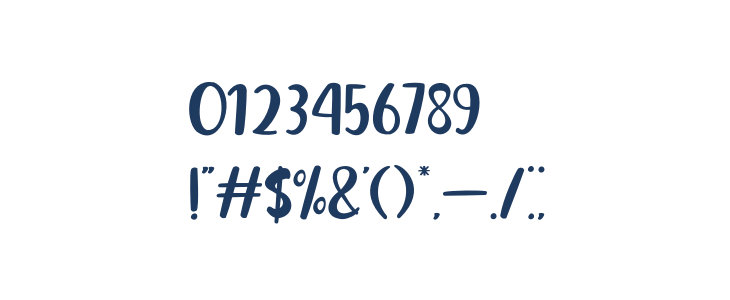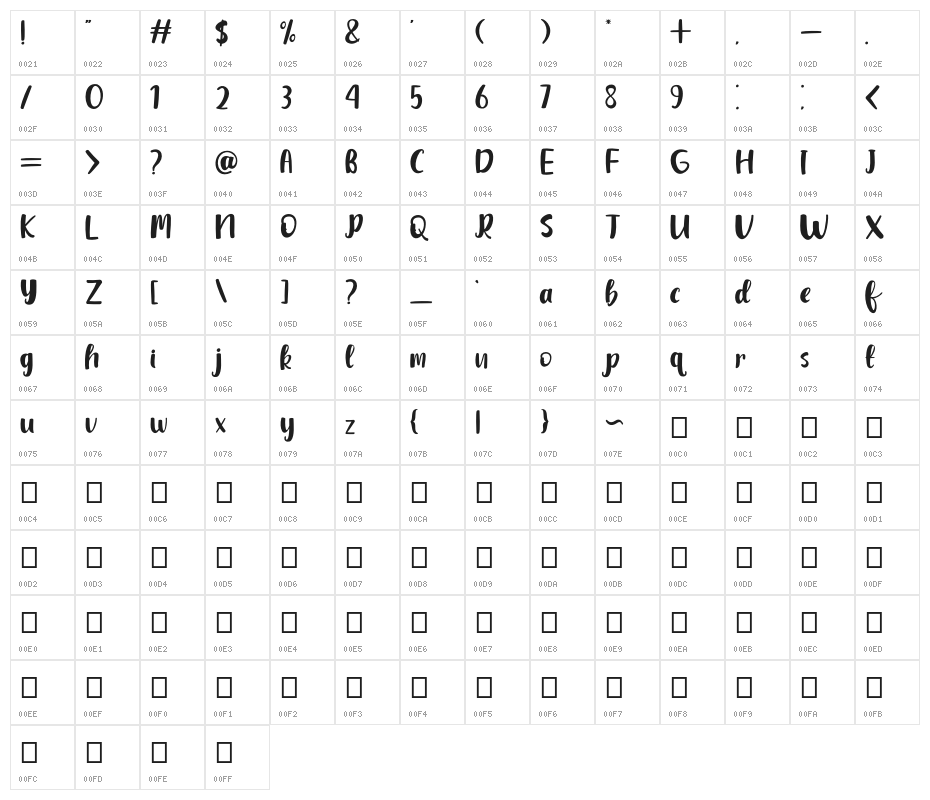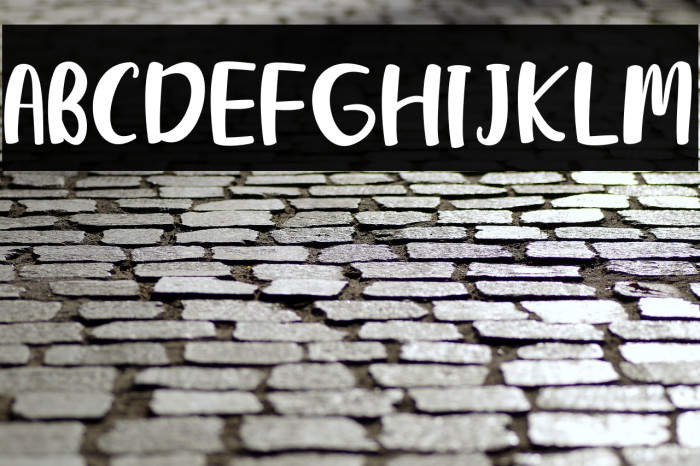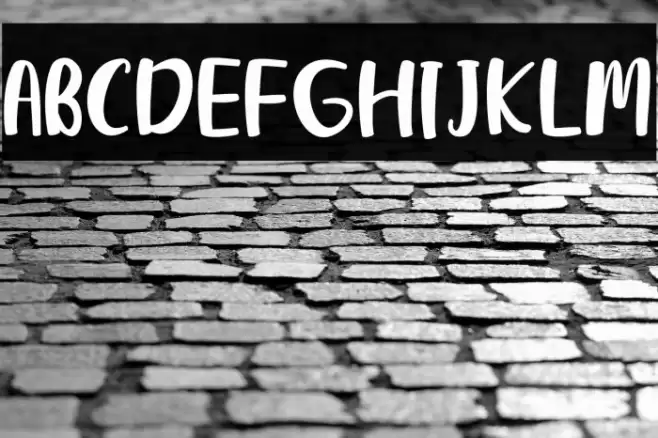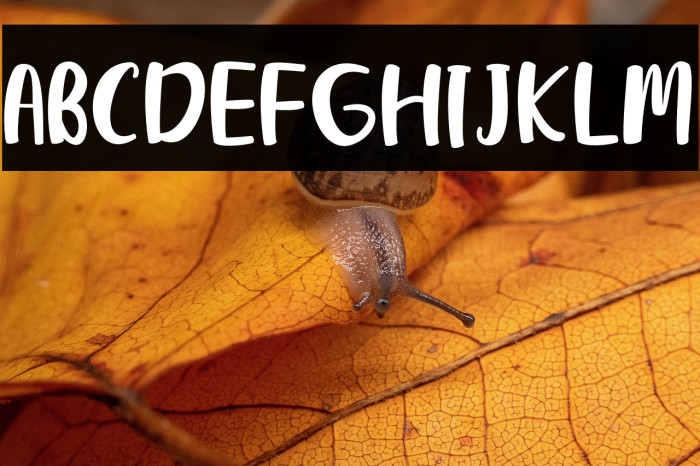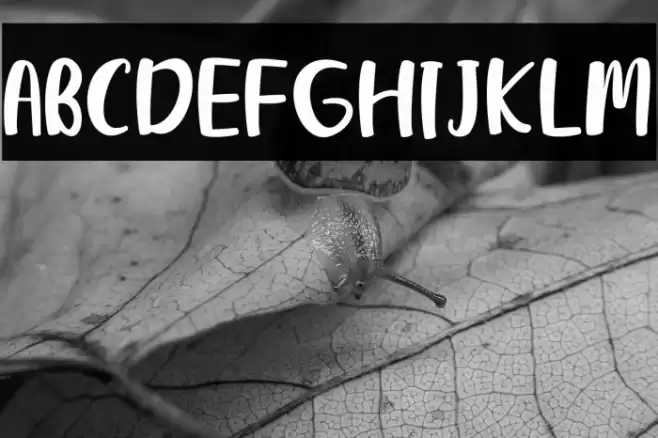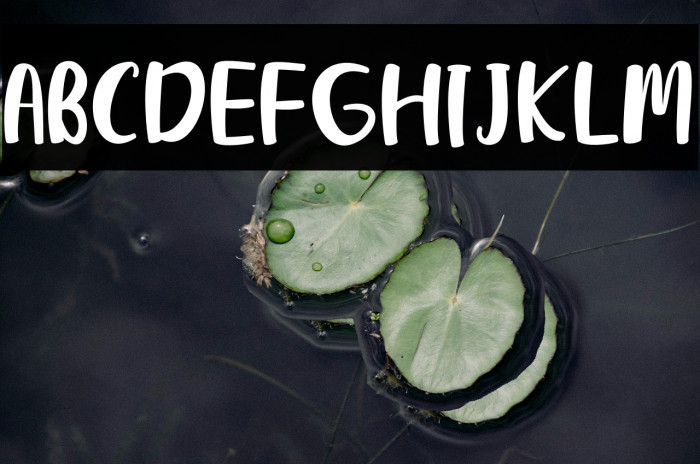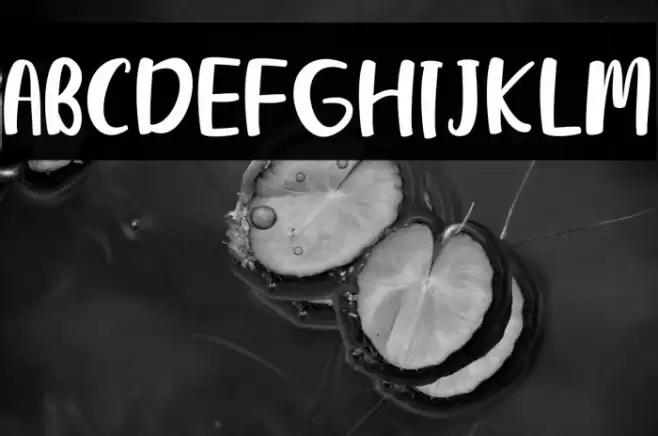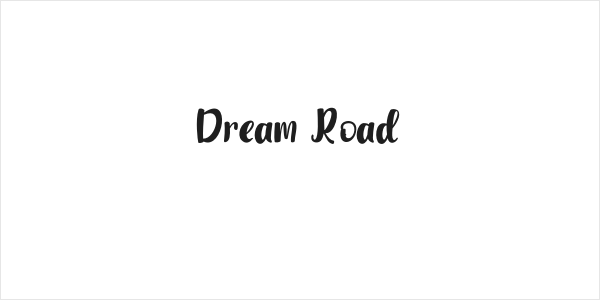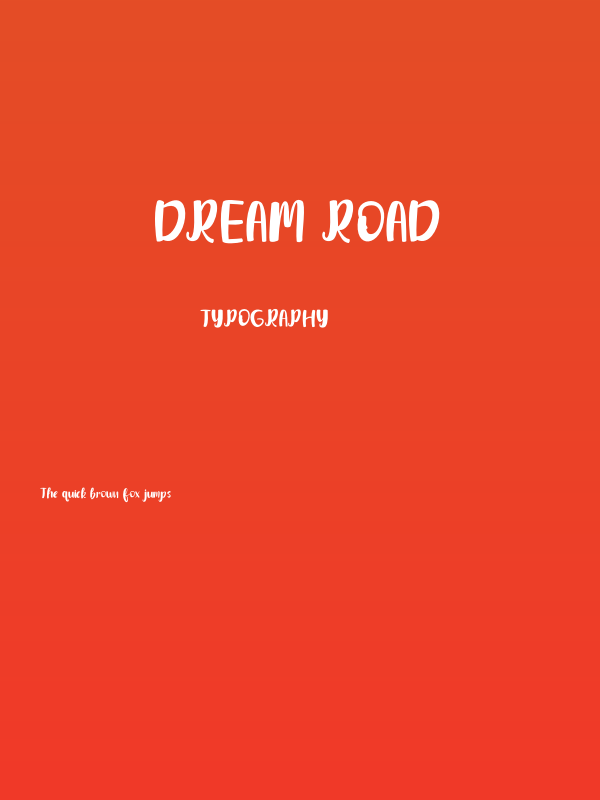
Dream Road Font
Dream Road Description
This font features a playful and bold script style, characterized by its thick, rounded strokes and smooth curves. The uppercase letters are slightly taller and more pronounced, while the lowercase letters maintain a consistent flow with a whimsical touch. The numbers and special characters follow the same bold and rounded aesthetic, ensuring uniformity across all characters. This font exudes a friendly and approachable vibe, making it suitable for creative and informal designs. Its unique style is perfect for capturing attention and adding a personal touch to any project.
| Proposed Projects | Ideal for greeting cards, playful branding, children's books, and creative posters. |